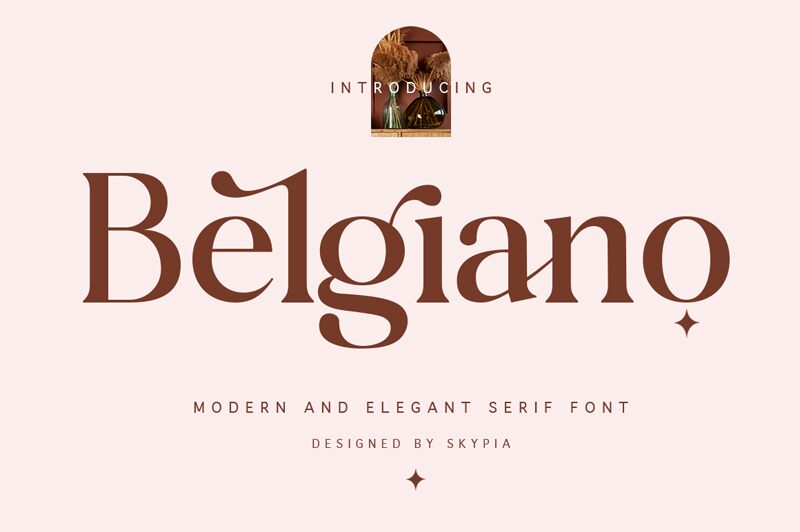
Belgiano Serif, crafted by the talented Fajarisha Phonna, is a modern and elegant serif font that exudes sophistication. Its refined letterforms make it perfect for a wide range of projects. For timeless branding, use Belgiano Serif bold font in your logo design. For editorial layouts, the semi-bold typeface will captivate readers with its legibility and grace. When designing invitations or stationery items, the regular width will add a touch of class to any event. Whether you're creating websites or print materials, Belgiano Serif is the ultimate choice for those seeking a contemporary yet refined aesthetic.
Belgiano Serif
Belgiano Serif Regular